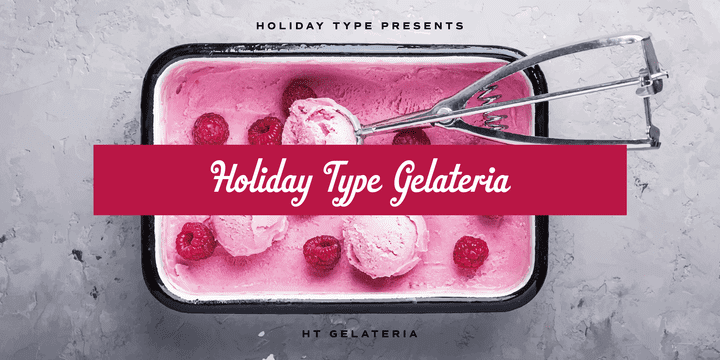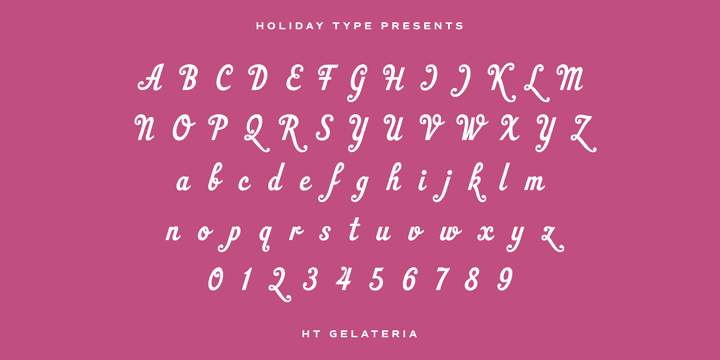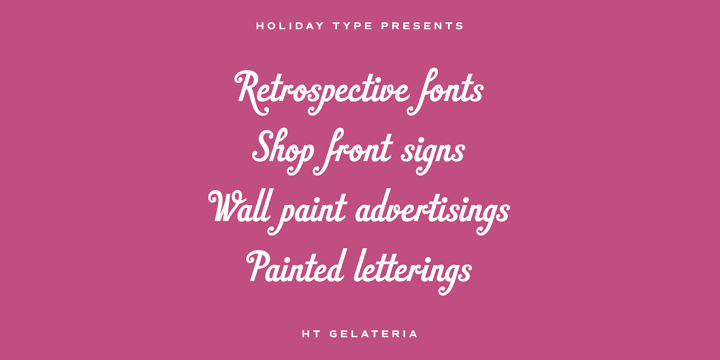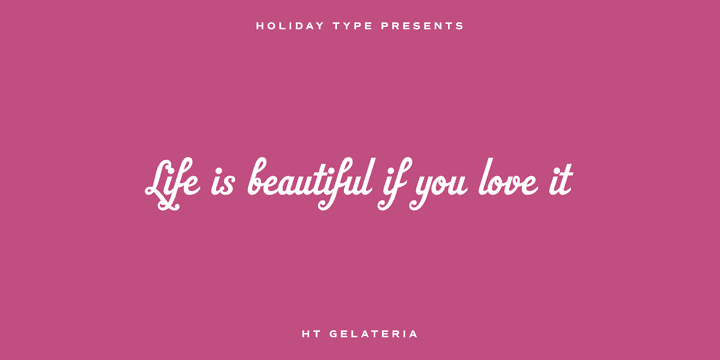
HT Gelateria (1 font)
Holiday Type Project offers retro hand drawing scripts. Inspired by retro script on shopfront lettering, wall paint advertisements in Italy around 1950s. Check out the script fonts from Holiday Type!